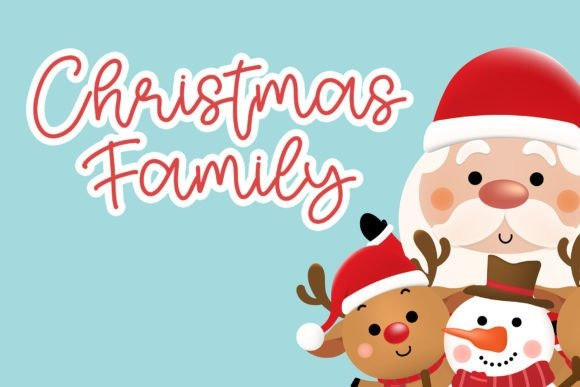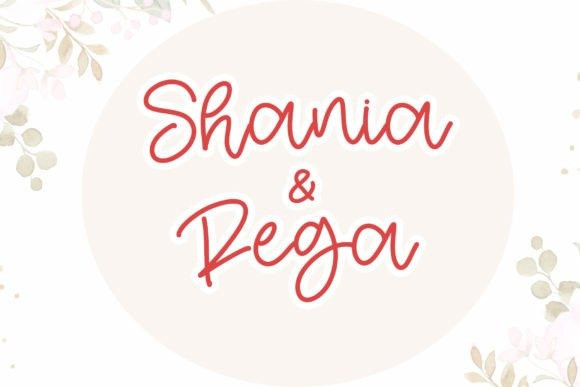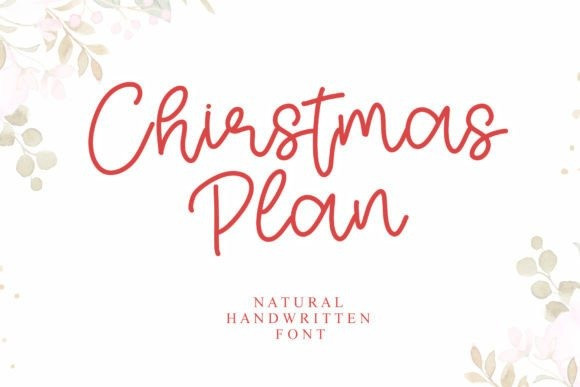
Christmas Plan Handwriting Font
Christmas Plan Handwriting Font is a sweet handwritten monoline font. That font is perfect for logos, greeting cards, packaging design, brand identity, craft designs, any DIY project, book titles, wedding invitations, or anything that needs a lovely personalized touch.